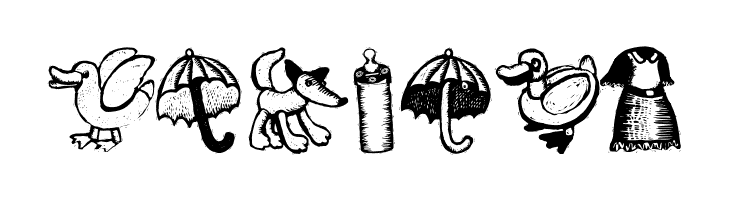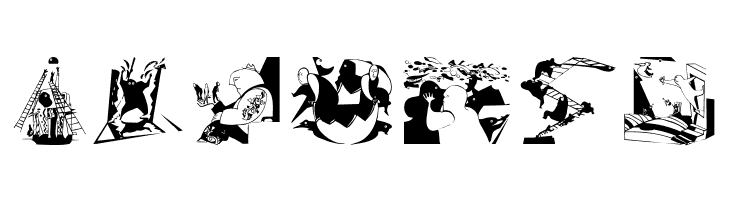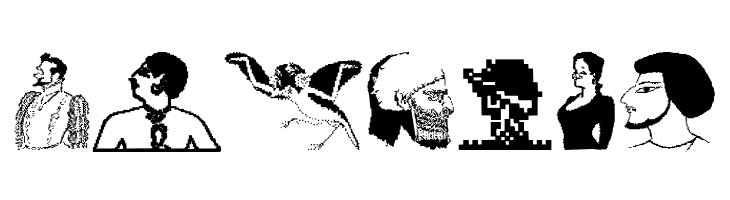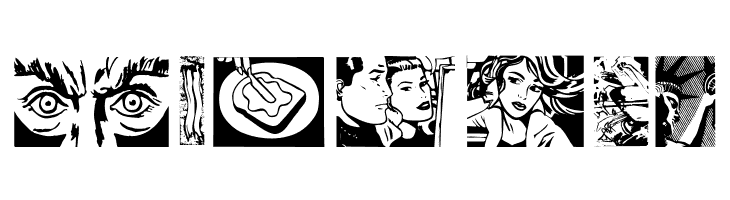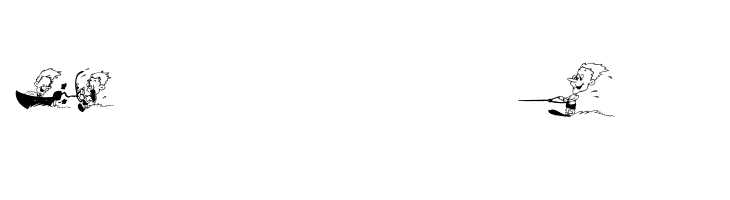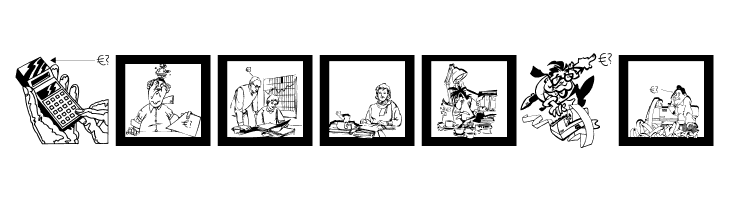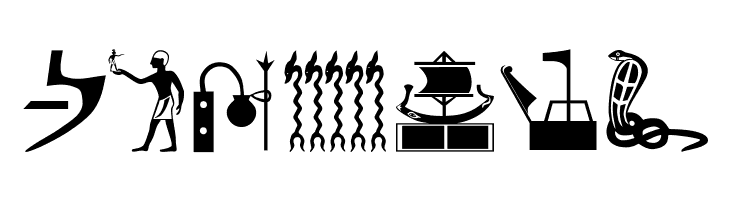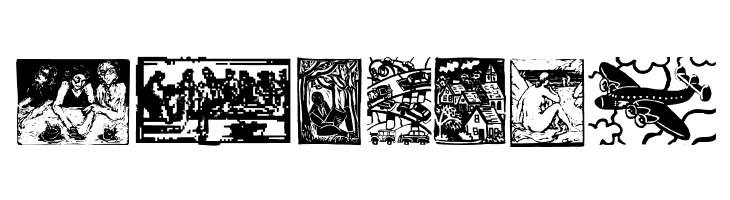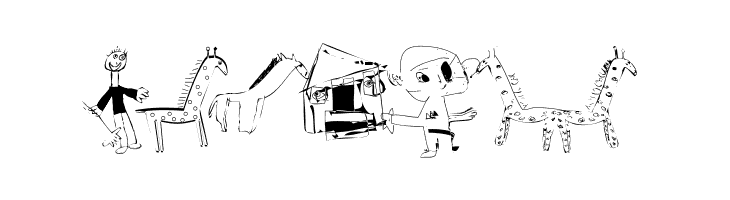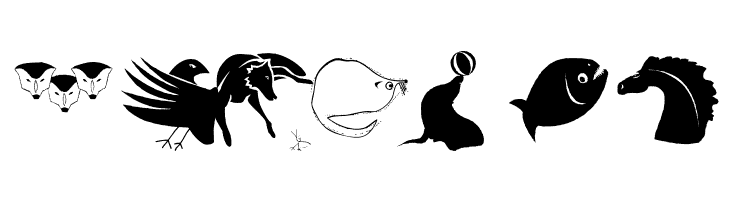
A woodcut-style dingbat font with playful, vintage illustrations.
An artistic and decorative font with intricate illustrations in each character.
A decorative font with unique illustrative characters for creative designs.
A decorative font featuring pop art-inspired icons and illustrations.
Decorative pictorial font featuring beach and water activity illustrations.
A cartoon-style illustrative set representing characters with humorous drawings.
Pictorial font inspired by Egyptian hieroglyphs.
Woodcut-style pictorial dingbat font with detailed illustrations.
A playful, doodle-based illustrative font with unique character scenes.
Animal-themed decorative font with each glyph as a unique animal silhouette.